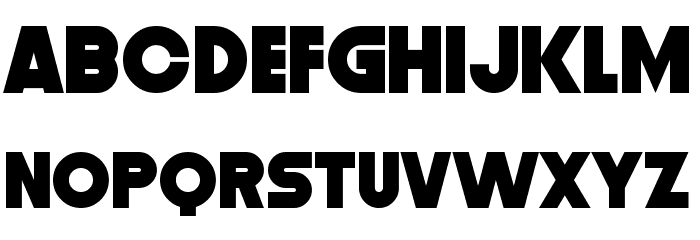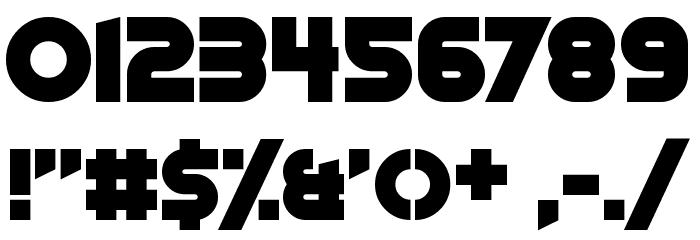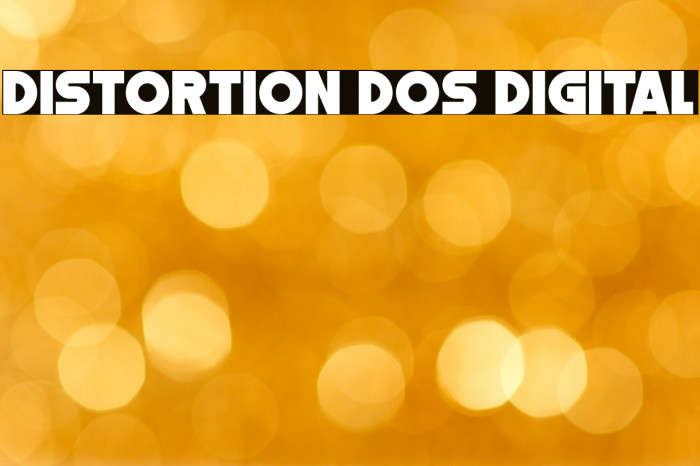
Distortion Dos Digital Font
This font features a bold, geometric design with strong, block-like characters. The uppercase letters are uniform in height and width, creating a cohesive and impactful appearance. The font's design is characterized by its thick strokes and minimal contrast, giving it a modern and assertive look. The numbers and special characters maintain the same boldness and geometric style, ensuring consistency across all elements. The overall style is highly suitable for digital and print media where a strong visual presence is required.
A bold, geometric font with strong, block-like characters and minimal contrast.
- Proposed Projects: Ideal for digital displays, posters, branding, and any project requiring a bold and modern typeface.